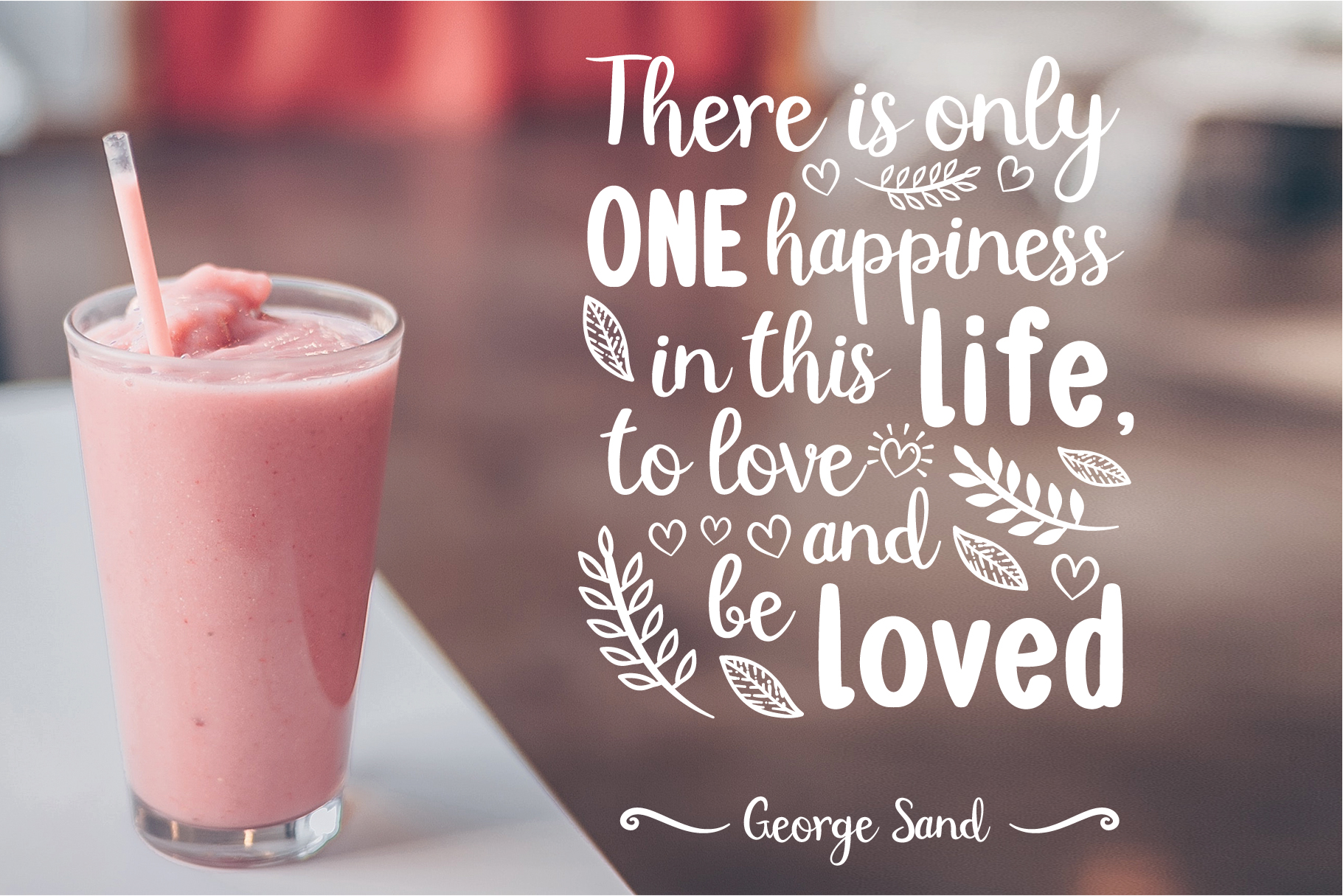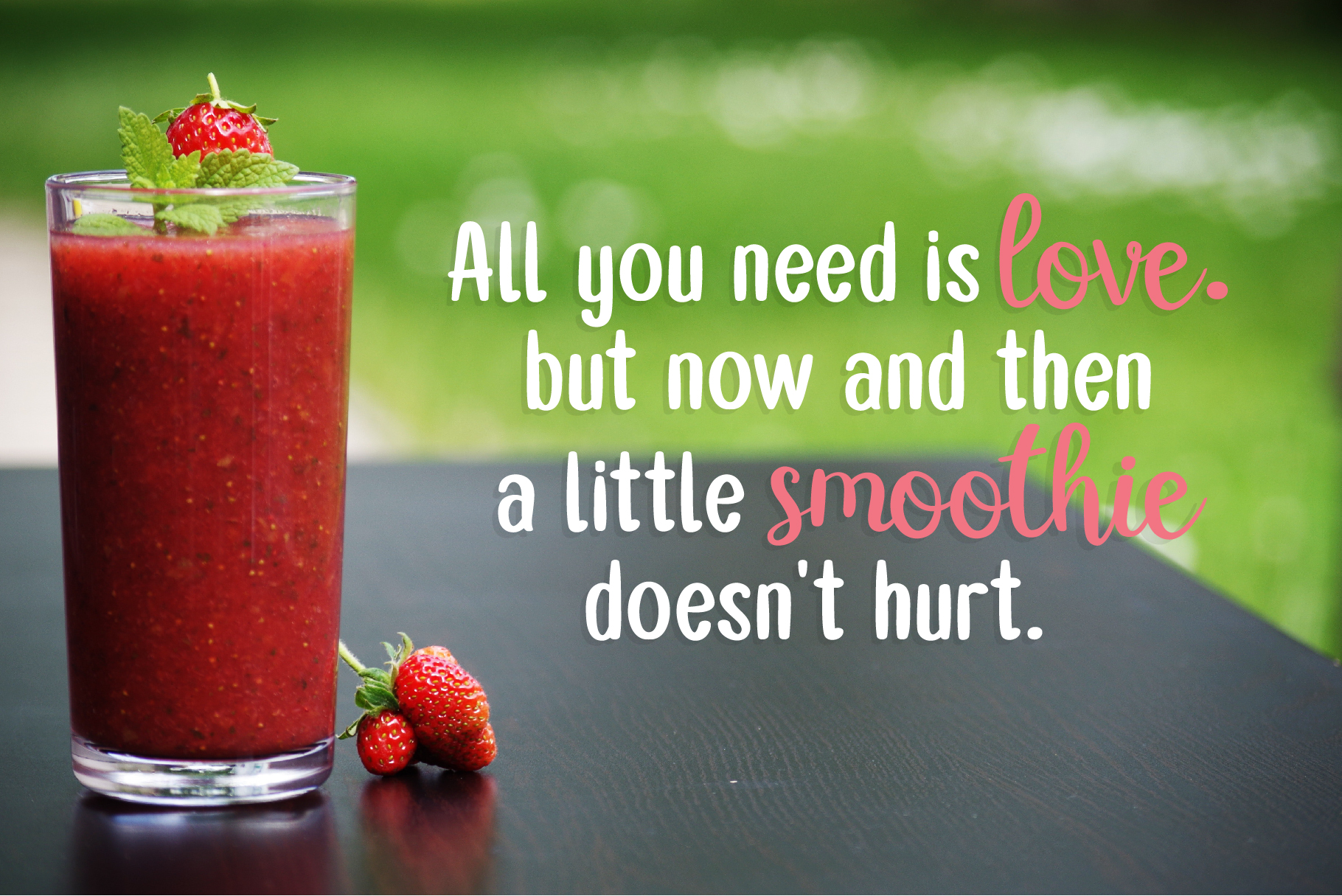
Double Smoothie Font
db-ku.com - Script & Handwritten -- Double Smoothie is a fun font duo with bonus doodles! This font is a hand-brushed typeface family, with smooth strokes and cute shapes making it perfect for fun invitationals, branded content, and more!